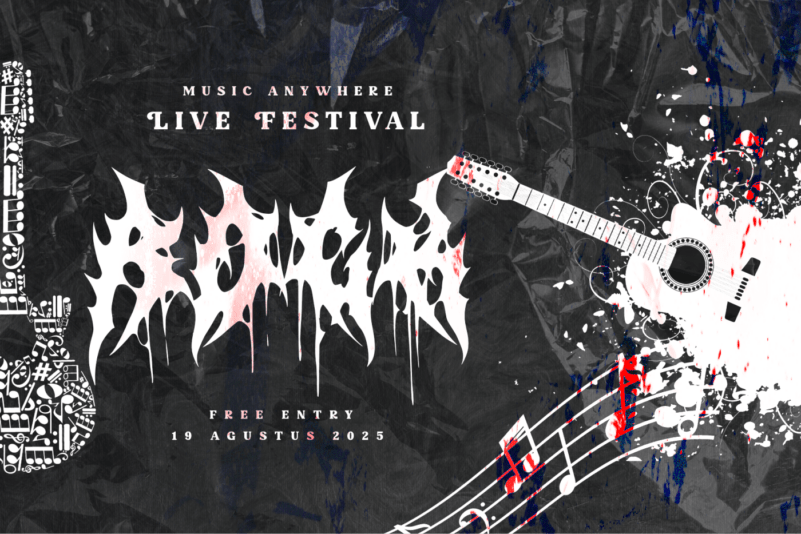
Cronicle Font
Cronicle Display Font is a metal display font. Uppercase and lowercase letters are available, simpler than other metal fonts and legible. Display font with metal or rock music theme.